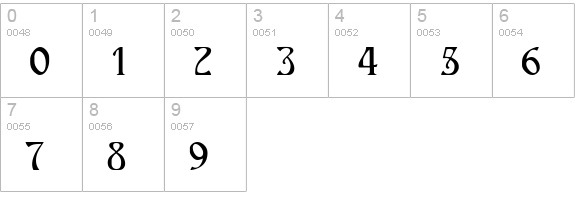
NouveauExtended Bold Font Details
NouveauExtended Bold is a strong, high-contrast variant in the NouveauExtended typeface family \xE2\x80\x94 well suited to headlines, attention-grabbing titles, and strong calls-to-action.
NouveauExtended Bold is a striking and versatile font that exudes modernity and sophistication. Its bold and eye-catching appearance makes it perfect for headlines, titles, and other attention-grabbing design elements. With its extended proportions and sleek lines, NouveauExtended Bold adds a touch of elegance to any project. The best part? NouveauExtended Bold is completely free to download at FontsMarket.com. This means you can add this stylish font to your collection without any cost, making it a valuable asset for designers, creatives, and anyone looking to enhance their visual projects. Don't miss out on the opportunity to elevate your designs with NouveauExtended Bold - download it now and see the difference it can make!